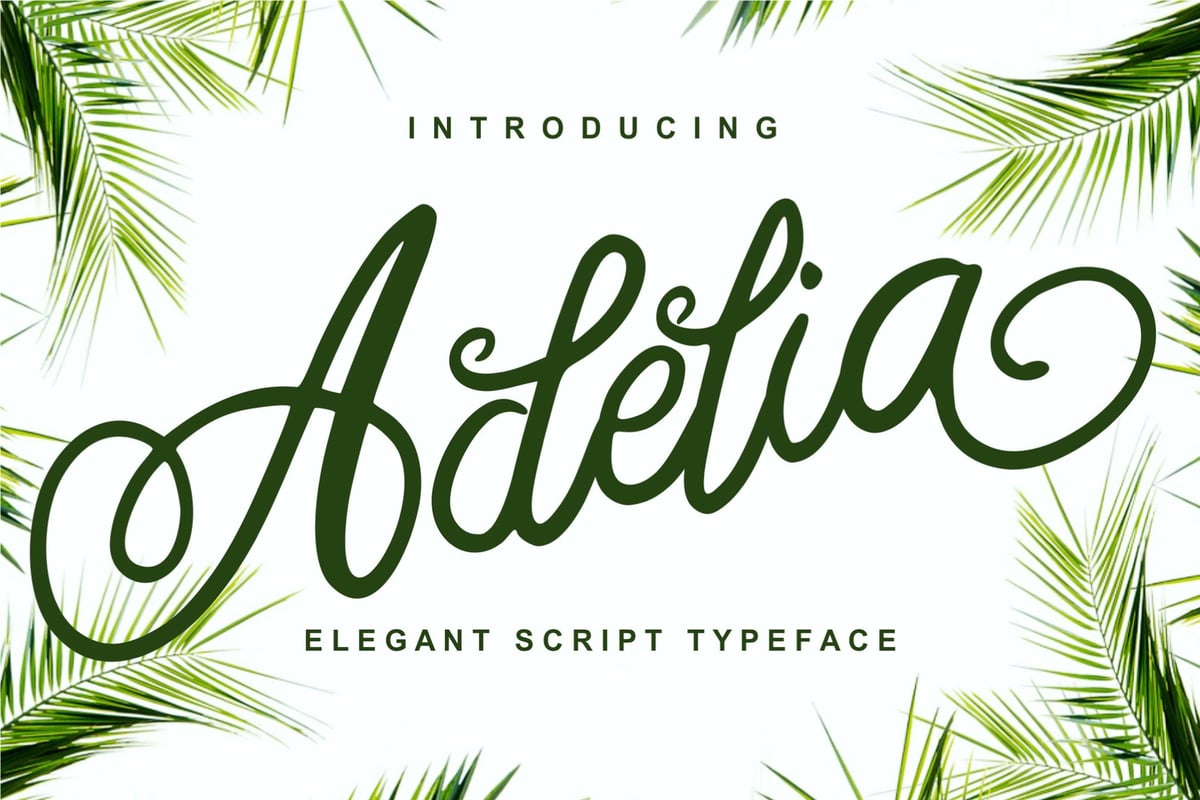
Free Adelia - Elegant Script Typeface
Adelia is a flowing, elegant script typeface built for beautiful branding, wedding stationery, and standout designs.
With its graceful curves and sophisticated style, Adelia looks stunning across a wide range of creative projects — from wedding invitations and greeting cards to business cards, quotes, posters, and packaging.